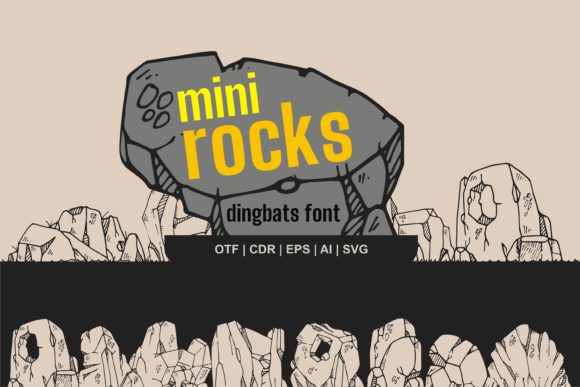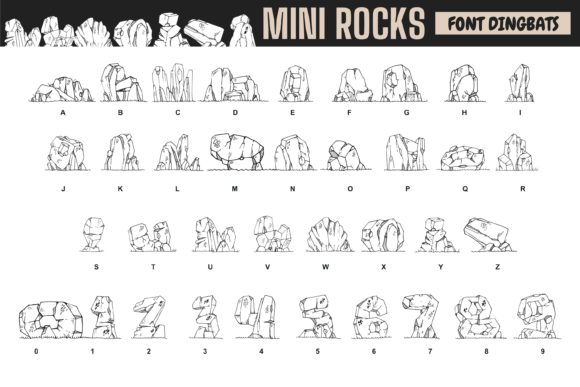
Mini Rocks Font
About Mini Rocks Font
“Mini Rocks” is a useful and beautiful dingbats font that can enhance a variety of creative projects. Whether you’re working on crafts, digital designs, presentations, or making greeting cards, this font can be the perfect addition to your toolbox.
The “Mini Rocks” font features a collection of unique and eye-catching symbols and icons that resemble rocks or stones. These dingbats can add a touch of natural elegance, texture, and visual interest to your designs. The intricate details and organic shapes of the symbols make them versatile and suitable for various themes and styles.
When using “Mini Rocks” for crafting, you can incorporate the symbols into handmade cards, scrapbooking projects, journaling, or any other crafty endeavor. The stone-like appearance can complement themes related to nature, earth, mindfulness, and wellness. You can use the symbols individually or arrange them creatively to create patterns, borders, or focal points in your craft projects.
In digital designs, “Mini Rocks” can be used to enhance presentations, social media graphics, website designs, or any other digital medium. The symbols can serve as decorative elements, dividers, or icons, adding a unique visual touch to your designs. They can also be combined with other fonts or design elements to create interesting compositions.
Furthermore, “Mini Rocks” can be a valuable asset for creating greeting cards for various occasions. Whether it’s birthdays, anniversaries, or special holidays, the stone-inspired symbols can add a sense of sophistication and charm to your card designs. You can use the symbols to represent elements such as rocks, pebbles, gems, or even abstract shapes, allowing for creative flexibility.
Overall, “Mini Rocks” is a useful and beautiful dingbats font that can elevate your crafting, digital designing, presentations, or greeting card making. Its unique symbols resembling rocks or stones bring a natural elegance and visual interest to your projects. Explore the versatility of this font and let your creativity flow, using it to enhance various creative endeavors with its charming and distinctive appearance.